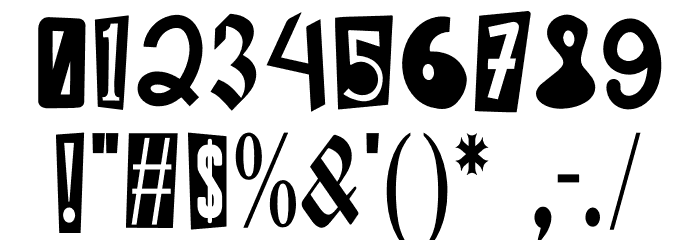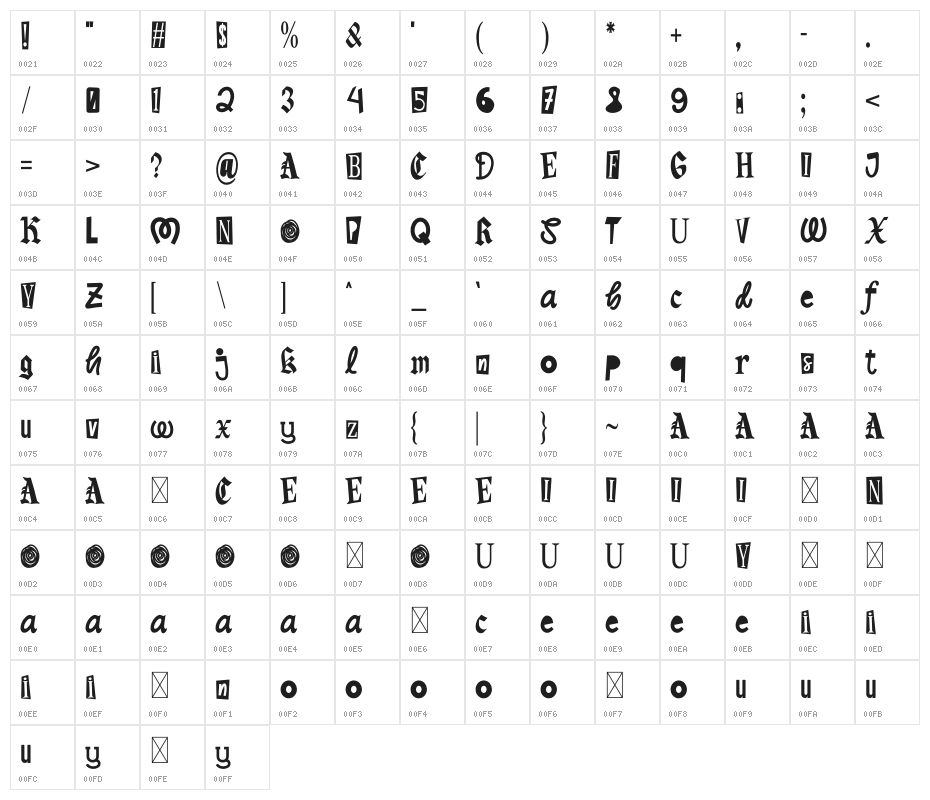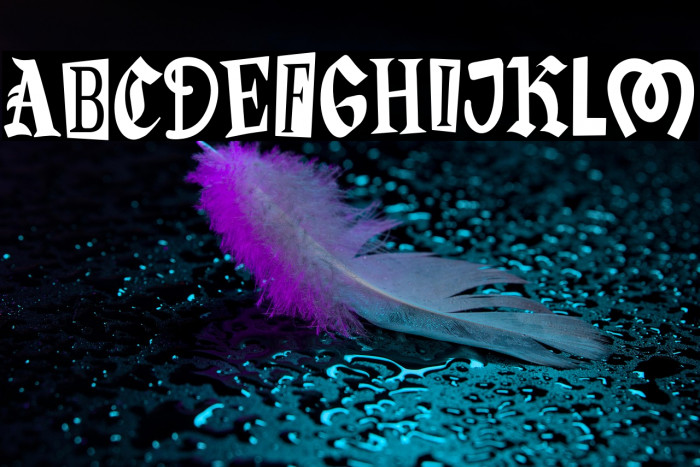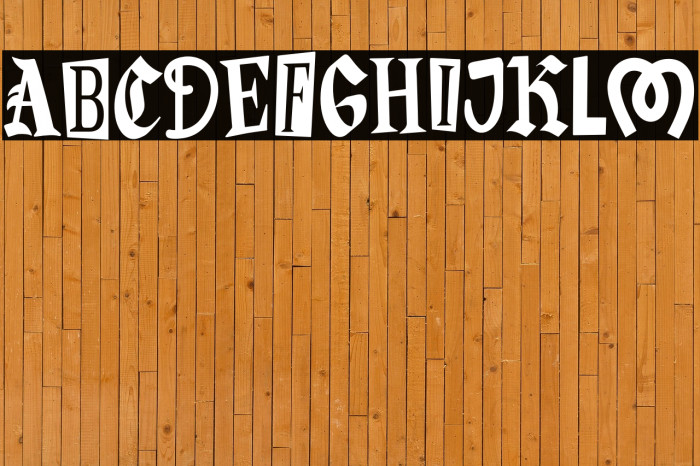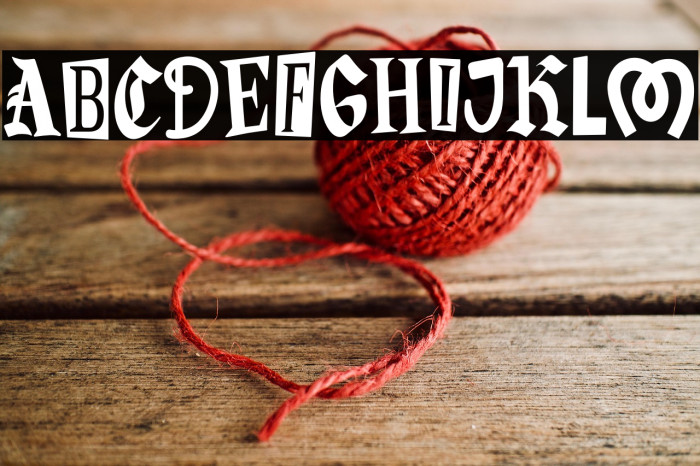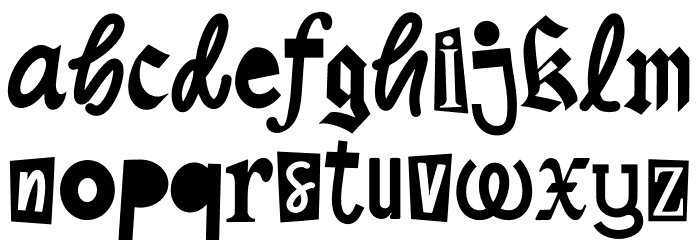
Sound Distortion Font
Sound Distortion Description
This font features a highly eclectic and playful design, with each character exhibiting unique and varied shapes. The uppercase letters are bold and dramatic, with some characters incorporating elements of distortion and asymmetry, creating a sense of movement and energy. The lowercase letters continue this theme, with a mix of whimsical curves and angular forms. Numbers and special characters maintain the quirky and dynamic style, making the font ideal for creative and unconventional projects. The overall appearance is bold and eye-catching, perfect for grabbing attention.
| Proposed Projects | Ideal for music album covers, posters, and creative branding projects. |